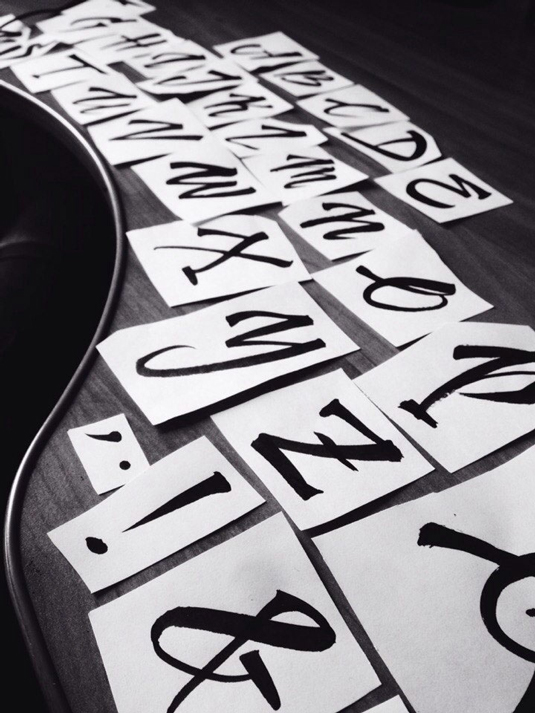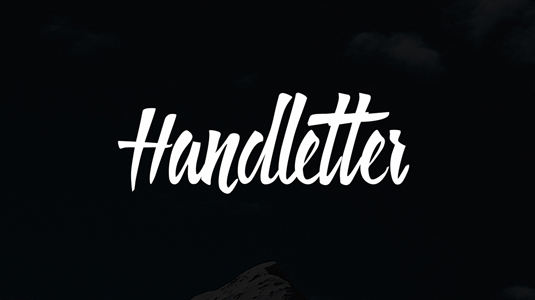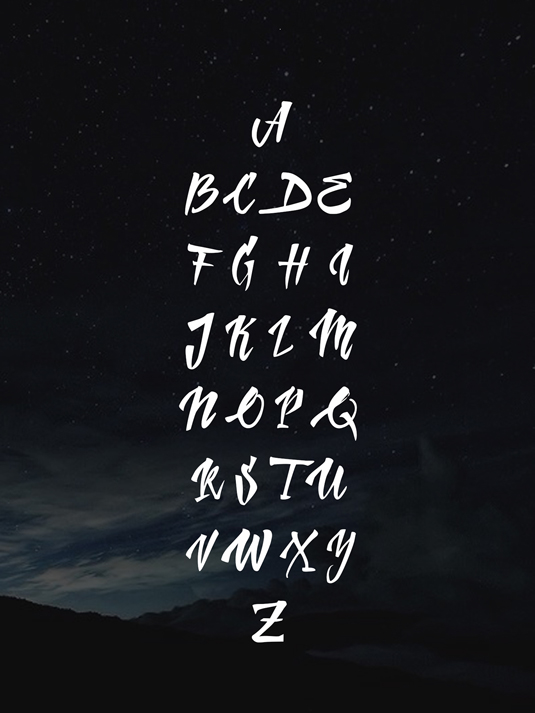
Font of the day: Handletter
Every day we showcase the best fonts on the web. Today it's Handletter by Sasha Koggio, which is free for personal use.
Handletter by Sasha Koggio
If you're on the hunt for a stylish, handwritten typeface, today's font of choice could be just the solution. Created by calligrapher Sasha Koggio, Handletter is great for creating eye-catching designs.